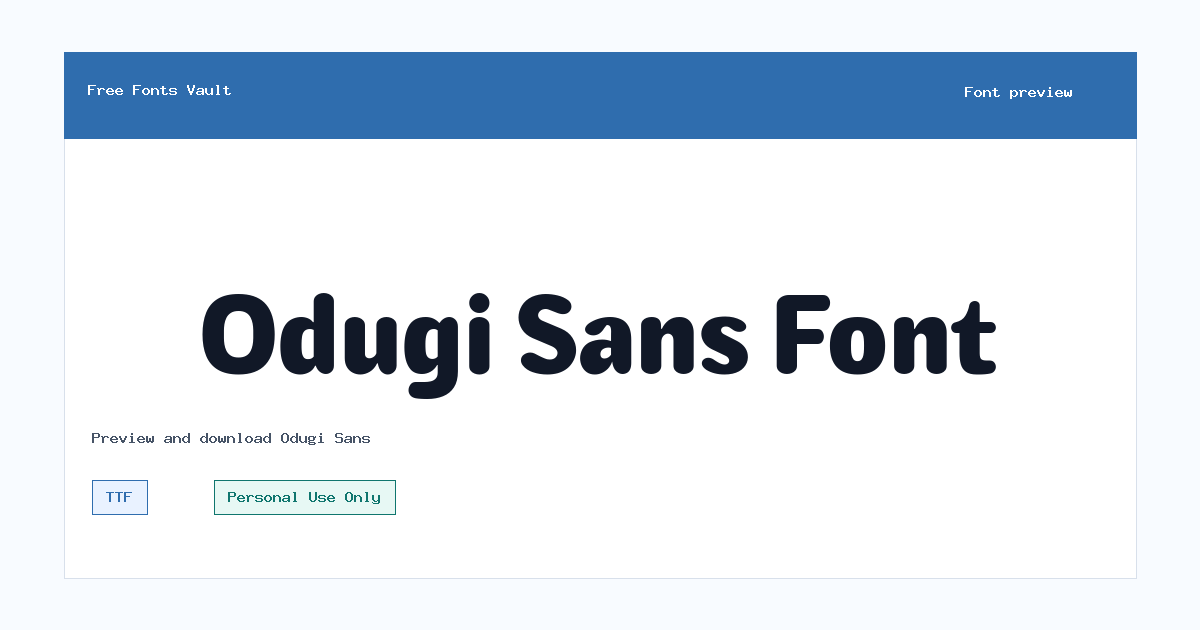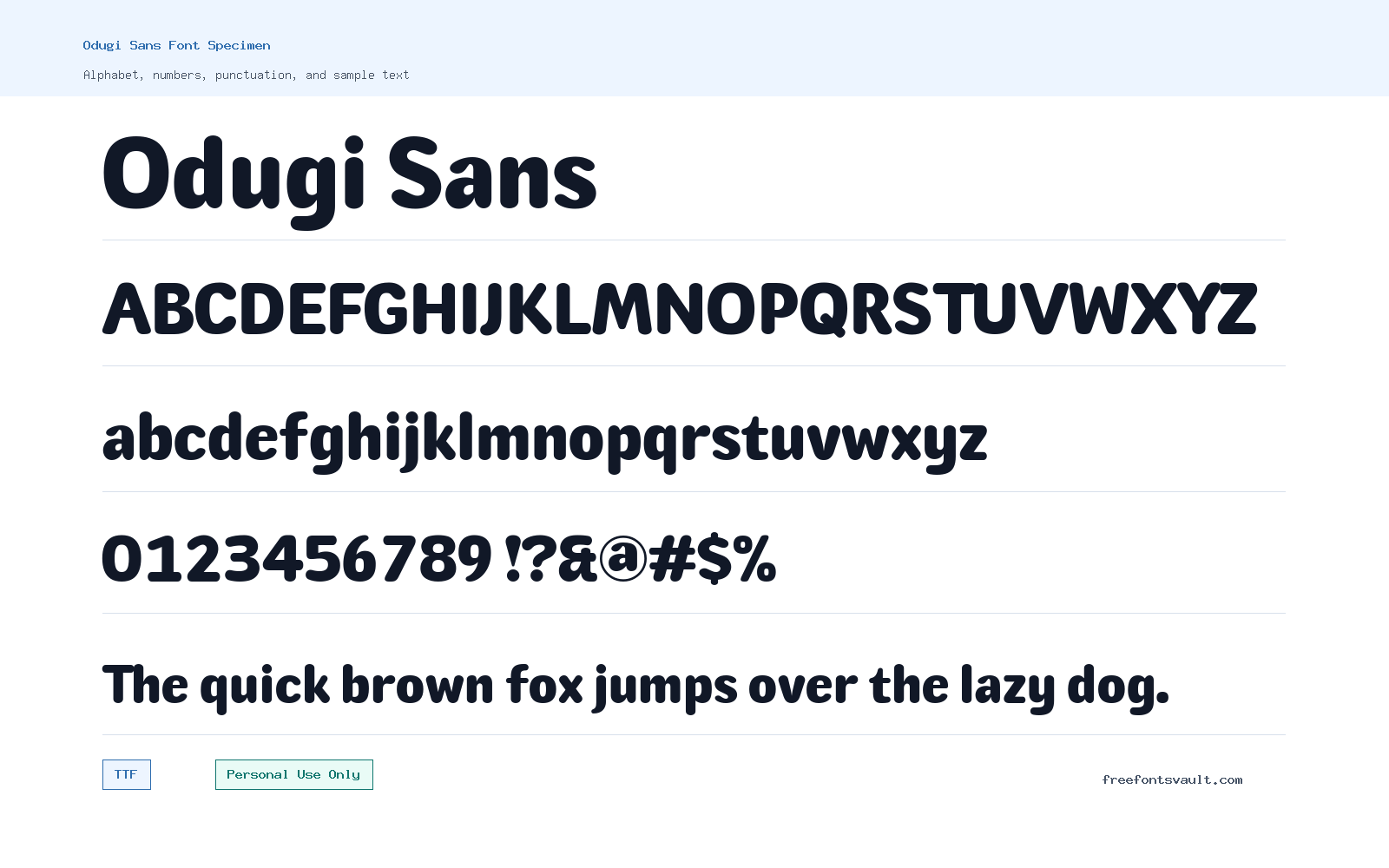
Odugi Sans
- Designer Zain Fahroni
- Foundry Four Lines Studio
Odugi Sans is a clean sans serif font family by Zain Fahroni of Four Lines Studio. It is useful when you want simple, modern letterforms with enough character for titles, branding drafts, posters, packaging mockups, and digital layouts.
About Odugi Sans
Odugi Sans has a straightforward sans serif structure with balanced proportions and a clear reading rhythm. The family is presented as a versatile design that can work in both display settings and shorter body text, especially when the layout needs a clean voice without feeling too plain.
- The wider Odugi Sans family is listed by retail and font-directory sources with six styles, including Heavy Bold styles.
- A clean sans serif design suited to display text, branding drafts, editorial layouts, packaging concepts, and digital content.
- Listed sources describe support for uppercase, lowercase, multilingual characters, and several typographic features in the broader family.
- Logo drafts and brand concept presentations
- Poster titles, product labels, and packaging mockups
- Social media graphics and clean promotional images
- Editorial headers, section titles, and short blocks of text
- Personal design experiments that need a simple modern sans serif
Who designed Odugi Sans?
Odugi Sans is credited to Zain Fahroni and Four Lines Studio.
What is Odugi Sans good for?
It is a good fit for clean headlines, branding drafts, packaging mockups, posters, social graphics, and short readable text blocks.
Does Odugi Sans include more styles?